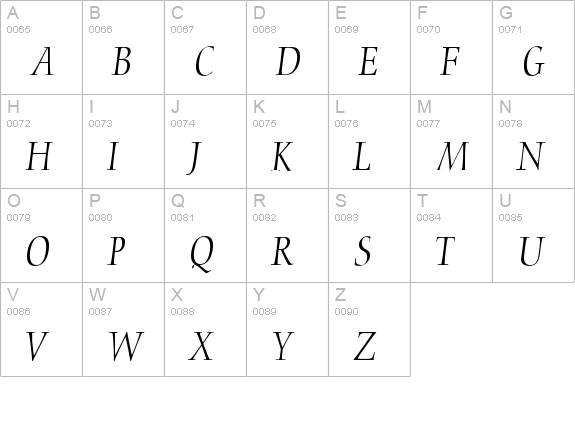
Nofret BQ Light Italic Font Details
Nofret BQ Light Italic is a refined, elegant, italic variant in the Nofret typeface family \xE2\x80\x94 well suited to elegant body text, refined sub-headings, and luxury branding.
Nofret BQ Light Italic font is a stunning and elegant typeface that exudes sophistication and style. Its delicate and graceful italic design adds a touch of beauty to any project, making it perfect for use in branding, editorial design, and more. The soft curves and flowing lines of this font lend a sense of refinement and class to any text it adorns. What's even better is that Nofret BQ Light Italic font is available for free download at FontsMarket.com. This means you can easily access this exquisite typeface without any cost, allowing you to elevate your designs with a touch of luxury without breaking the bank. Don't miss out on this opportunity to enhance your projects with the timeless beauty of Nofret BQ Light Italic font - download it for free today!